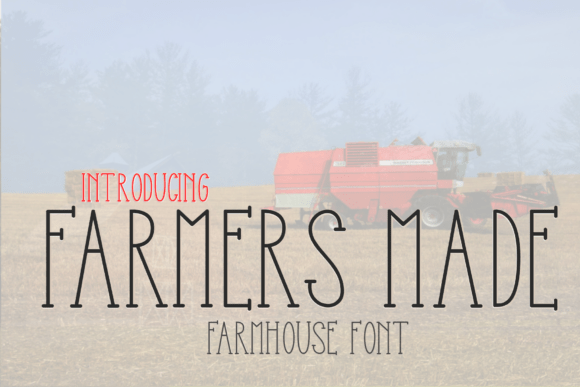
The Perfect Typographic Companion: Introducing Farmers Made Font
You know that moment when the words just flow, and the design comes together seamlessly? That’s what makes the creative process so magical. It’s the culmination of hard work, dedication, and a dash of inspiration. And for designers, having the right tools at their disposal can make all the difference. Enter the Farmers Made Font, a versatile and elegant slab serif font that’s sure to elevate your designs.
This understated yet effective font boasts a thin lettered design that’s perfect for a wide range of applications, from editorial layouts to branding materials. With its simplicity and sophistication, the Farmers Made Font is an incredible asset to any designer’s library. Whether you’re working on a complex project or a simple visual identity, this font has the potential to bring your vision to life.
Farmers Made Font Key Features
- Size and Resolution: The font family includes 6 weights, ranging from Light to Black, with each weight available in 6 different optical sizes (8, 12, 14, 18, 24, 48) to cater to various design needs.
- Unique Characteristics: The Farmers Made Font features a distinctive, hand-drawn design with subtle imperfections, giving it a warm and organic feel that is perfect for creative and rustic designs.
- Kerning and Ligatures: The font includes advanced kerning and ligature tables, ensuring that characters are properly spaced and connected for a professional and polished look.
Review: Farmers Made Font
Overall, I have mixed feelings about the Farmers Made Font. As a designer, I appreciate the effort that went into creating a unique and authentic-looking font. Here are some things that work well:
- ✨ Authentic, handcrafted feel that adds a touch of warmth to any design
- ✨ Unique letterforms that are perfect for creating a rustic or vintage vibe
- ✨ Good legibility, even at smaller font sizes
However, there are some limitations that prevent me from giving it a glowing review:
- ⚠️ Limited character set, which can be a problem for projects that require a wide range of characters
- ⚠️ Some letterforms can be difficult to read, especially in certain contexts (e.g. low contrast backgrounds)
- ⚠️ Not ideal for projects that require a high level of precision or consistency
Overall, I think the Farmers Made Font is a great choice for designers who want to add a touch of whimsy or personality to their projects. However, it may not be the best choice for more formal or technical projects. With a bit more development and refinement, I think this font has the potential to be truly great.
Here are some tips to get the most out of the Farmers Made Font:
- Use the font in combination with other rustic or vintage elements to create a unique design.
- Use the font in headings or titles to create a clear hierarchy of information.
The Farmers Made Font is ideal for:
- Rustic or vintage-themed designs.
- Agricultural or farm-related projects.
- Outdoor or nature-inspired designs.